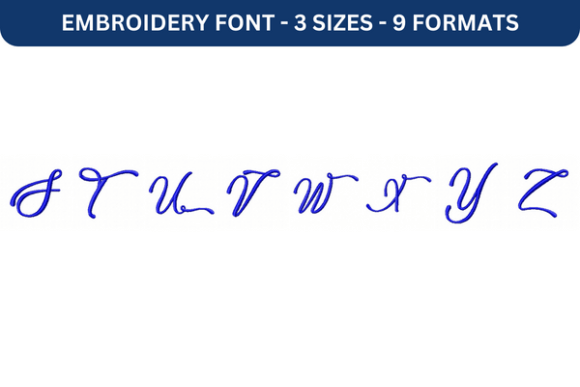
Embroidery Font for Personalized Designs
The Lovely Home Font Upper S to Z is a versatile embroidery font designed to bring creativity and personalization to fabric projects. Whether you're crafting custom gifts, branding materials, or decorative items, this font offers a unique way to add character and style to your work.
Why This Font Matters to Different Audiences
Everyone has different needs when it comes to embroidery. For some, it's about creating meaningful items for loved ones. For others, it's about building a business or enhancing their creative portfolio. The Lovely Home Font Upper S to Z can be a valuable tool in various contexts, depending on the user's goals and skill level.
Beginners: A Simple Way to Start
For those new to embroidery, this font can be a great starting point. It's easy to use and provides a clean, elegant look that works well with basic designs. Beginners might appreciate the simplicity of using a pre-designed font rather than creating something from scratch. They may also value the availability of multiple file formats, which makes it easier to work with different machines and software.
Professionals: Enhancing Branding and Marketing
Professionals in marketing, design, or small business management often need consistent, high-quality visuals for branding. The Lovely Home Font Upper S to Z can help them create cohesive designs for logos, tags, or promotional materials. Its versatility allows for both subtle and bold applications, making it suitable for a wide range of commercial uses.
Creators and Hobbyists: Expressing Individuality
Crafters and hobbyists enjoy experimenting with different styles and techniques. This font gives them an opportunity to express their creativity through personalized items. Whether it's a custom quilt, a handmade bag, or a gift for a special occasion, the Lovely Home Font Upper S to Z adds a touch of elegance and individuality to their projects.
Educators and Freelancers: Teaching and Delivering Value
For educators or freelancers who teach embroidery or offer design services, this font can be a useful teaching tool. It helps demonstrate how to apply fonts effectively in different contexts. It also serves as a reliable resource for clients who want professional-looking results without the complexity of designing from scratch.
Key Features That Make This Font Stand Out
- High-Quality Design: The font is crafted with attention to detail, ensuring clarity and readability even at smaller sizes.
- Easy to Use: No complex setup required—just import the file and start stitching.
- Customizable: Users can adjust the size, placement, and styling to suit their specific project needs.
- Flexible Applications: Perfect for names, dates, quotes, and more—ideal for both personal and commercial use.
Practical Examples by Audience
Beginners: A new hobbyist might use this font to embroider a name on a tote bag or a shirt for a family member.
Professionals: A small business owner could incorporate the font into product tags or packaging to enhance brand identity.
Creators: An artist might use it to add text to a piece of art or a custom pillow for a client.
Consumers: A parent might choose this font to personalize a baby blanket or a graduation gift.
Choosing the Right Font for Your Needs
When selecting an embroidery font, consider your priorities. If ease of use is important, the Lovely Home Font Upper S to Z offers a straightforward solution. If you're looking for flexibility, its multiple formats and customizable features make it a strong contender. For those focused on quality and reliability, this font delivers consistent results across different projects.
Cost and Long-Term Value
While cost is always a consideration, the long-term value of the Lovely Home Font Upper S to Z should not be overlooked. Its versatility means it can be used repeatedly across various projects, reducing the need for additional purchases. This makes it a smart investment for both casual users and professionals alike.
Conclusion
The Lovely Home Font Upper S to Z is more than just a font—it's a tool that empowers creators, simplifies processes, and enhances the final result. Whether you're a beginner, a professional, or somewhere in between, this font has something to offer. By understanding your goals and how this font aligns with them, you can make an informed decision that supports your creative journey or business objectives.